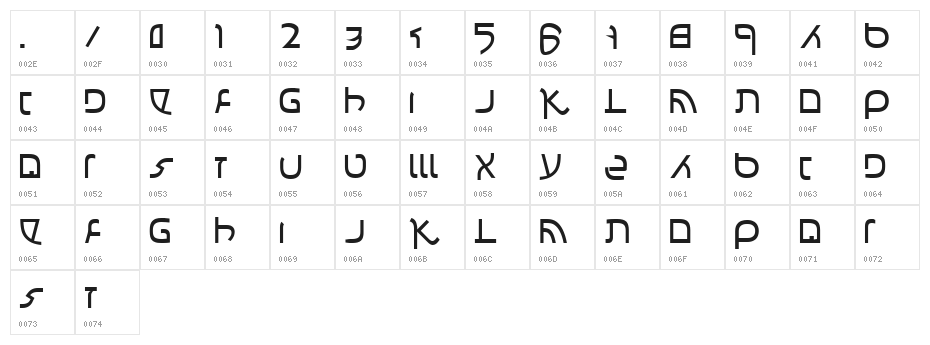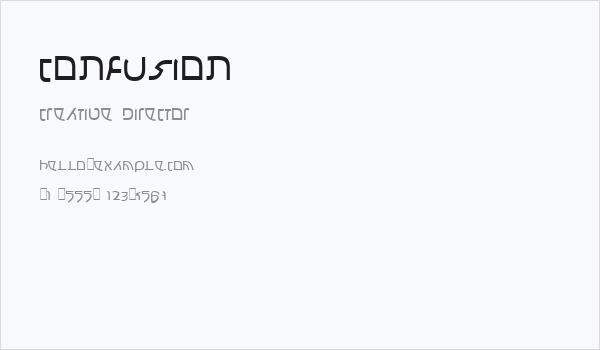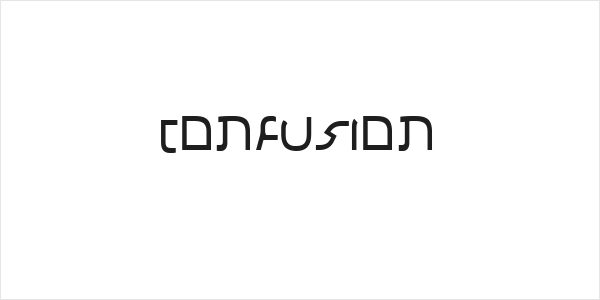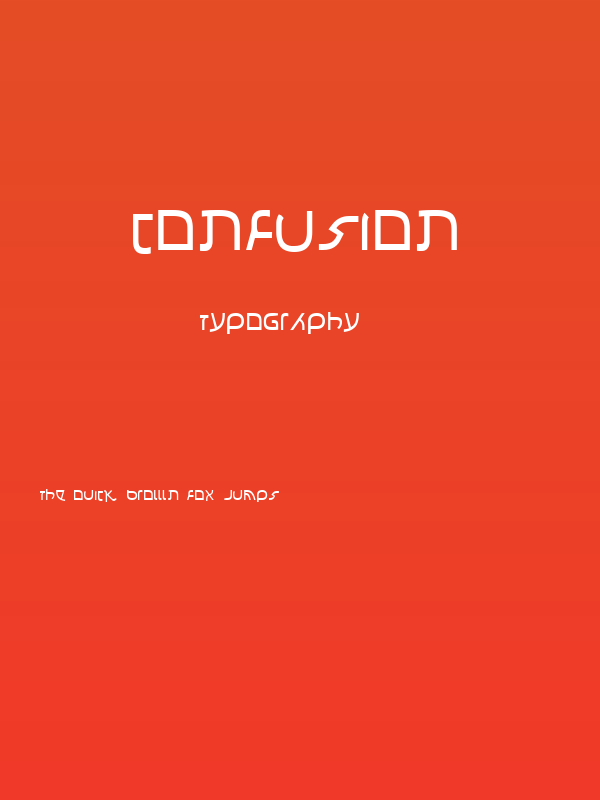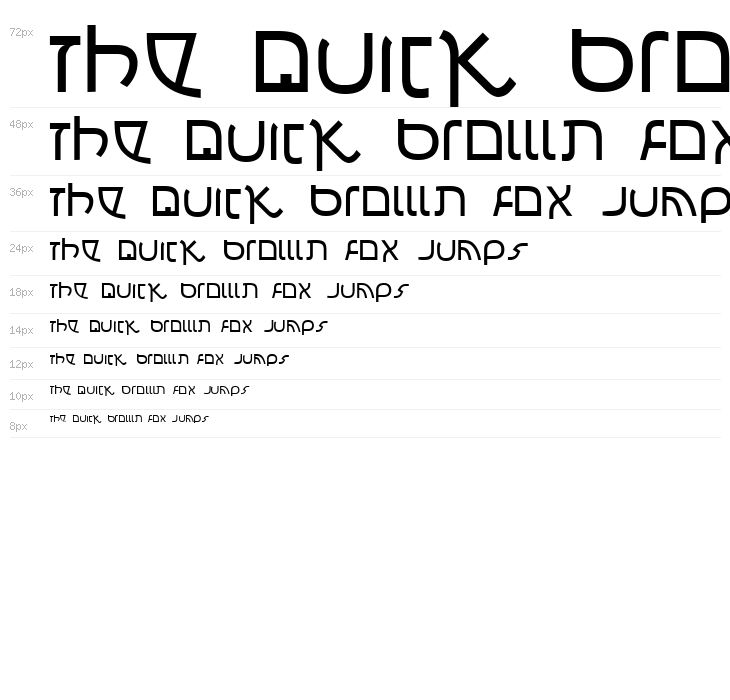
Confusion Font
Confusion Description
This font features a futuristic and geometric design with distinct angular shapes and curves. The characters are crafted with a unique blend of straight lines and rounded edges, giving it a modern and avant-garde appearance. The uppercase and lowercase letters maintain a consistent style, with a focus on symmetry and balance. Numbers are bold and follow the same geometric pattern, enhancing the font's cohesive look. Special characters are designed to match the overall aesthetic, making this font suitable for creative and innovative projects.
| Use Case | Logos, Posters, Branding |
| Proposed Projects | Ideal for sci-fi themed designs, technology branding, modern art posters, and innovative product packaging. |